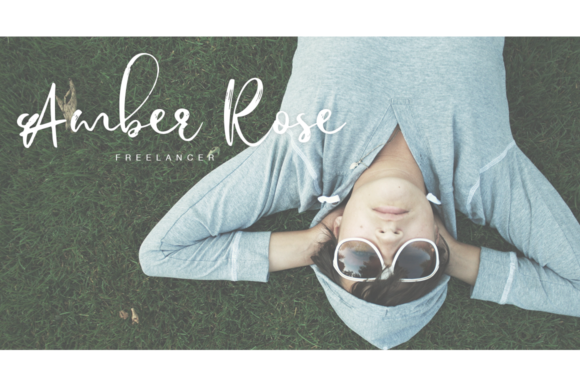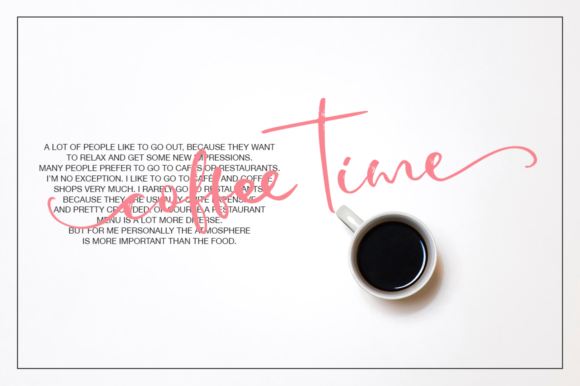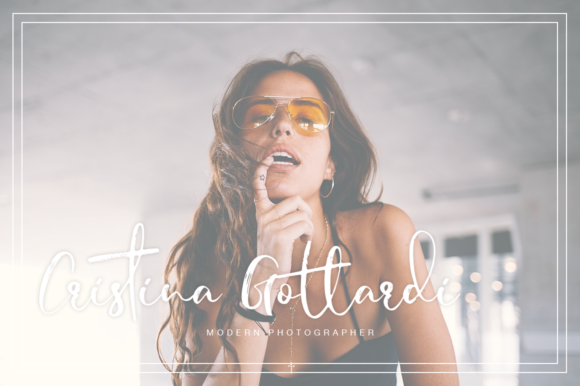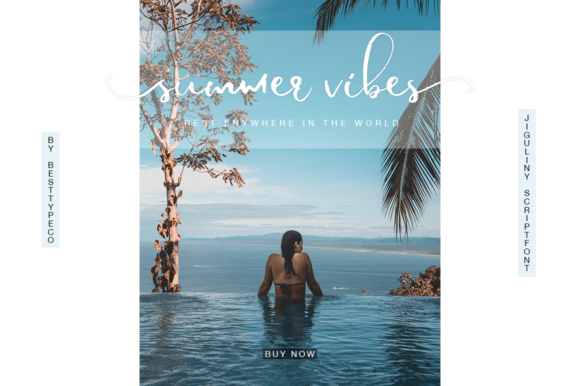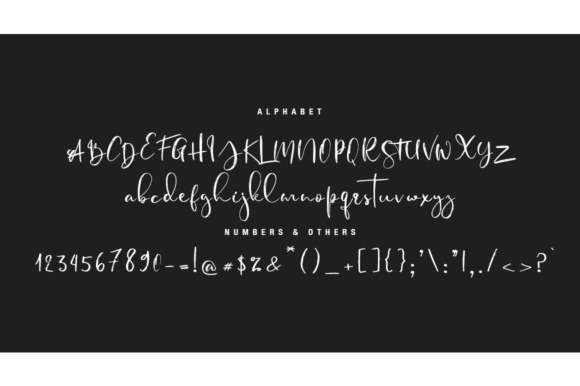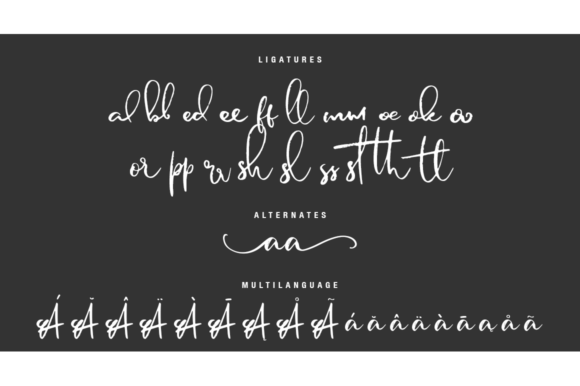
Introduction to Jiguliny Font
As designers, we’ve all been there – staring at a blank canvas, trying to come up with the perfect idea for a creative project. The blank page can be intimidating, but sometimes it’s in these moments of uncertainty that we stumble upon something truly special. For those who have been searching for a unique and elegant font to elevate their designs, the Jiguliny Font is here to save the day.
Handmade with love and precision, the Jiguliny Font is a masterpiece of calligraphy that exudes sophistication and style. With its beautiful, flowing lines and high-quality design, this font is perfect for adding a touch of elegance to your branding materials, business cards, quotes, and much more. Whether you’re a seasoned designer or just starting out, the Jiguliny Font is a valuable resource that’s sure to take your designs to the next level.
Key Features of Jiguliny Font
- Unique, handwritten style suitable for creative projects and designs
- High-quality design resource ideal for graphic designers, artists, and writers
- Includes a wide range of characters, including uppercase and lowercase letters, numbers, and punctuation
Honest Review: Jiguliny Font
I recently stumbled upon the Jiguliny Font while searching for a high quality font to enhance a creative project. The first thing I noticed was the sleek and modern design, which would be perfect for any design enthusiast.
Here are some of the things that work well for the Jiguliny Font:
- Modern and sleek aesthetic
- Limited character set
- No bold or italic variants
- Not suitable for large-scale commercial use
Overall, I’m impressed with the Jiguliny Font. While it may have some limitations, it’s a great design resource for small-scale creative projects or personal use. I’d definitely recommend it to fellow designers looking for a high quality font at an affordable price.
The Jiguliny Font is a high-quality design resource that can be used in various creative projects. It features a transparent background, making it ideal for layered designs and graphics.
Tips for Getting the Most Out of Jiguliny Font
Experiment with different font sizes, colors, and combinations to create unique and eye-catching designs. Use the transparent background to layer multiple elements and create depth in your designs.
The Jiguliny Font is ideal for:
Logos and branding materials
Graphics and illustrations
Social media posts and ads
Presentations and documents
Alternatives to Jiguliny Font
The Alex Brush Font is a beautiful, high-quality script font ideal for creative projects requiring elegance and sophistication. It features a transparent background and is suitable for various design applications, including logos, invitations, and typography-based designs. When to use: Formal events, weddings, and high-end branding.
Comparison to Jiguliny Font: While both fonts have a similar elegant feel, the Alex Brush Font has a more refined and polished appearance, making it suitable for high-end creative projects.